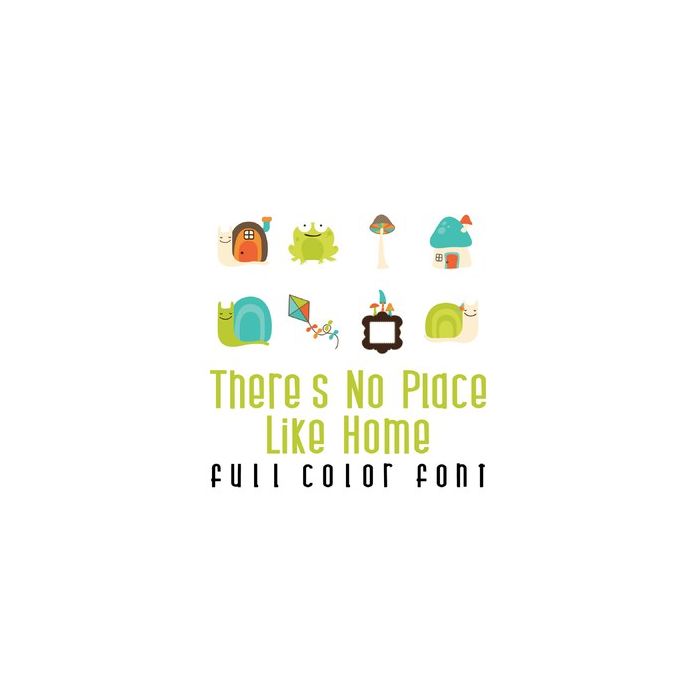
This adorable full color doodlebat font features 26 fun mushroom and snail imagery. Perfect for cards, crafts, gifts, decor, scrap book pages, planner stickers and more!